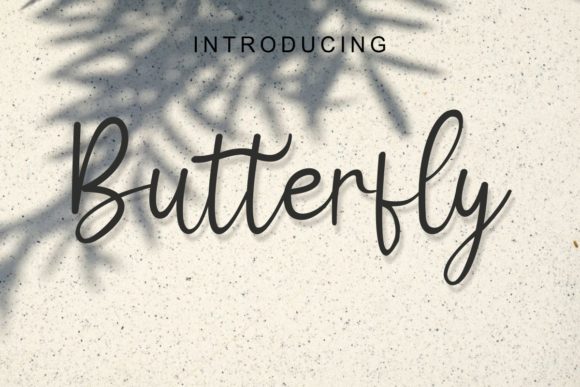
The Magical World of Butterfly Font: A Designer’s Delight
I’ll never forget the moment I stumbled upon the Butterfly font while working on a project for a client who wanted a delicate, elegant look. I had been searching for what felt like hours, trying out font after font, but nothing seemed quite right. That was until I saw Butterfly – its beautiful, flowing script and well-balanced characters immediately caught my eye. It was like the design gods had finally smiled upon me! ✨
An Honest Review of Butterfly Font
- ✨ Elegant and flowing design: Butterfly’s handwritten style is perfect for projects that require a touch of sophistication and whimsy.
- ✅ Well-balanced characters: The font’s carefully crafted characters ensure that your text looks beautiful and harmonious, no matter the context.
- 🌈 Versatility: Butterfly matches a wide range of designs, from feminine and playful to elegant and refined.
While Butterfly is an amazing font, there are a few things to keep in mind: 🤔
- ⚠️ Limited use in very small sizes: As with many script fonts, Butterfly may not be the best choice for very small text sizes, as some details may get lost.
- ⚠️ Occasional kerning issues: As with any font, you may encounter some kerning issues, especially when using certain character combinations.
- Experiment with OpenType features, such as stylistic alternates and glyphs, to add more flair to your text.
Butterfly was designed by a talented typographer who wanted to create a font that captured the elegance and delicacy of a butterfly’s wings. With a passion for calligraphy and handwriting, the designer carefully crafted each character to ensure that the font would be both beautiful and functional. 🌹
Q: Is Butterfly font suitable for body text?
A: While Butterfly is a beautiful font, it’s best suited for headings, titles, and short paragraphs. For body text, you may want to choose a font that’s clearer and more legible.